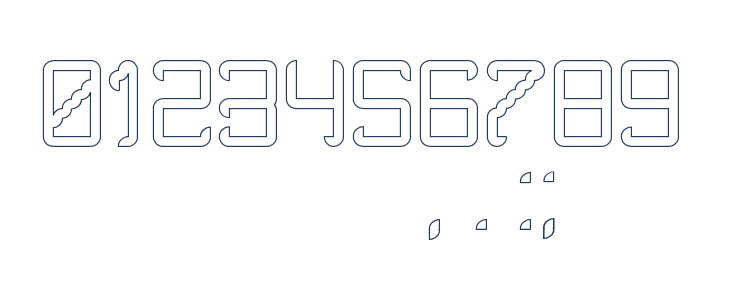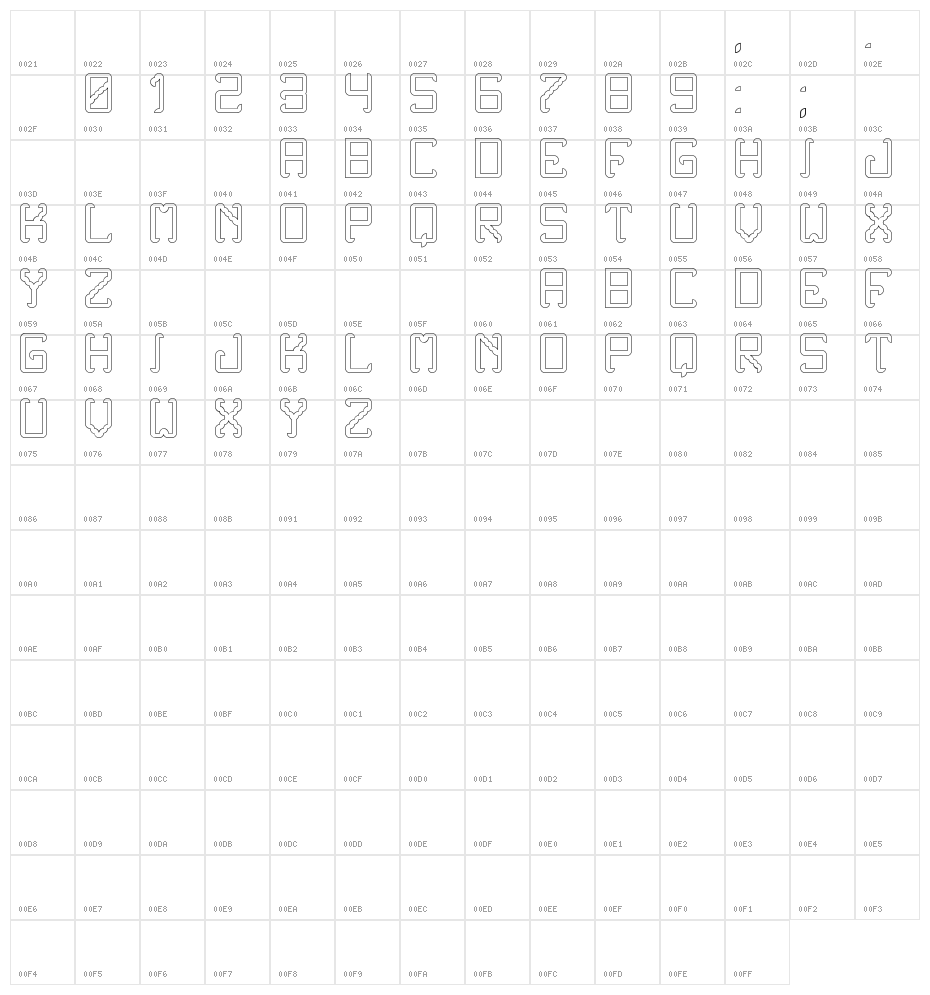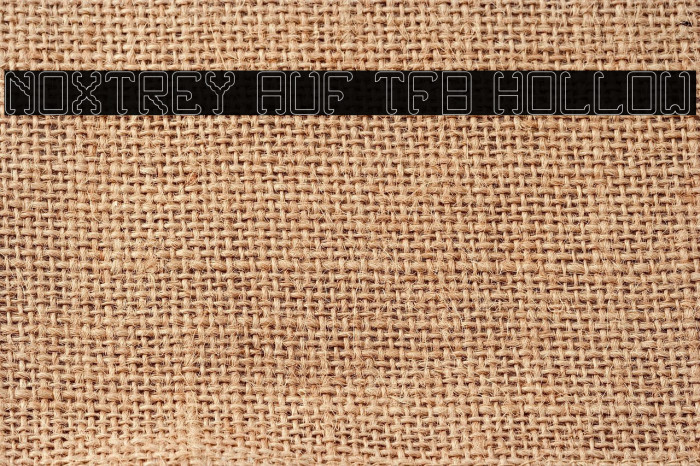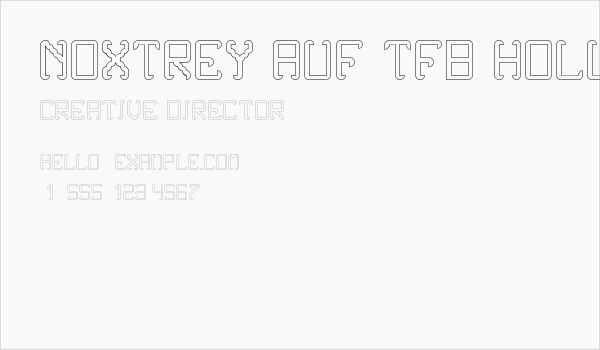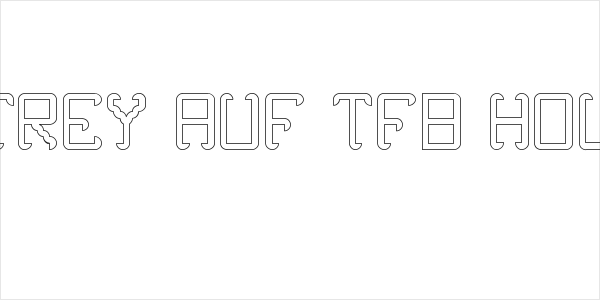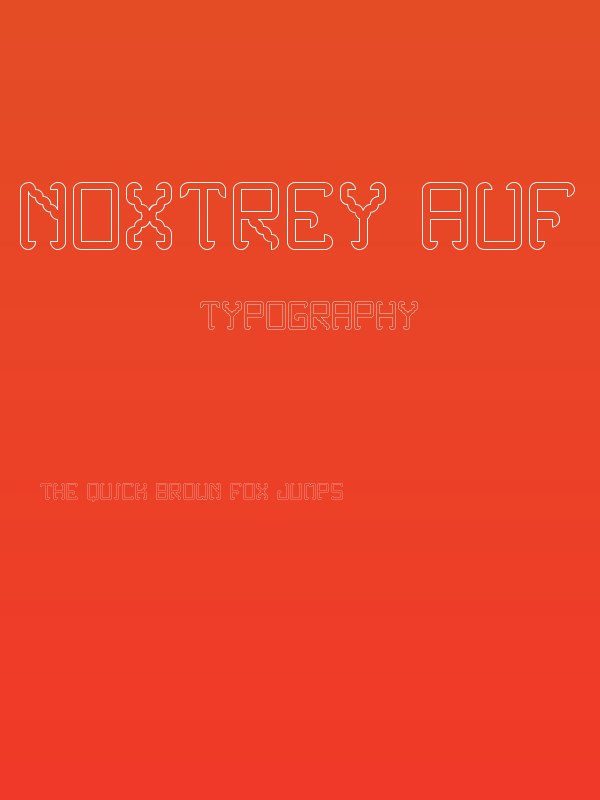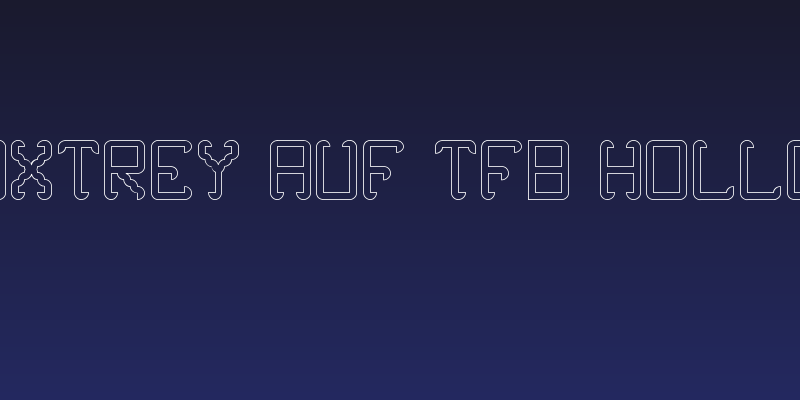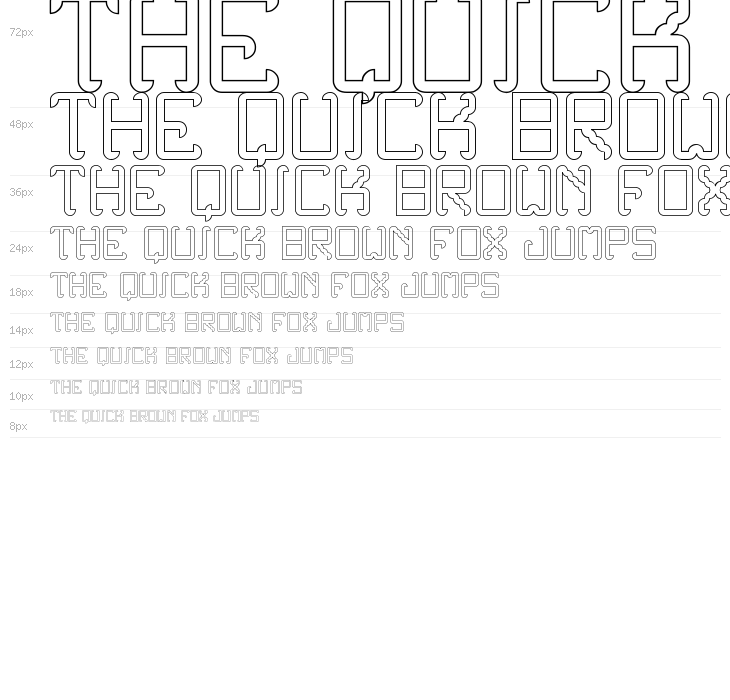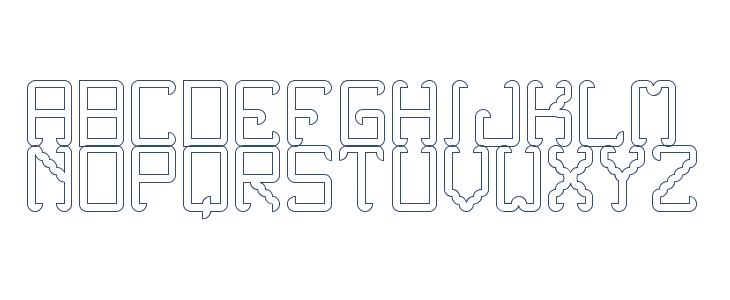
Noxtrey Auf tfb hollow Font
Noxtrey Auf tfb hollow Description
This font features a hollow, geometric design with a distinct blocky appearance. Each character is outlined with a consistent stroke width, creating a modern and futuristic look. The font is characterized by its angular shapes and sharp corners, giving it a unique, tech-inspired aesthetic. The uppercase and lowercase letters maintain a uniform style, while the numerals and special characters integrate seamlessly with the overall design. The hollow nature of the font adds a sense of lightness and openness, making it suitable for creative and innovative projects.